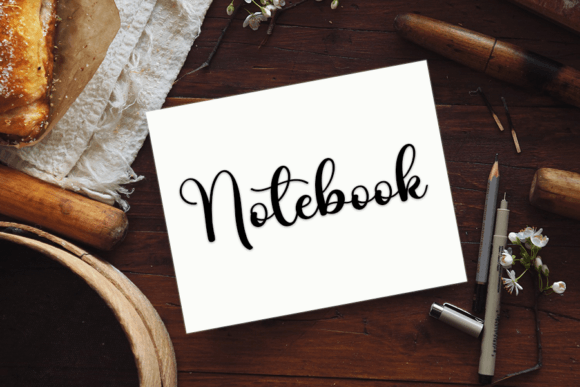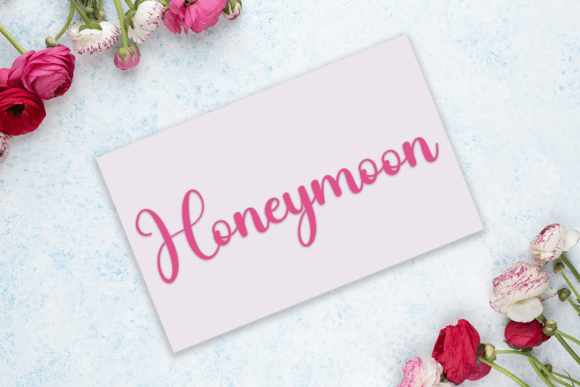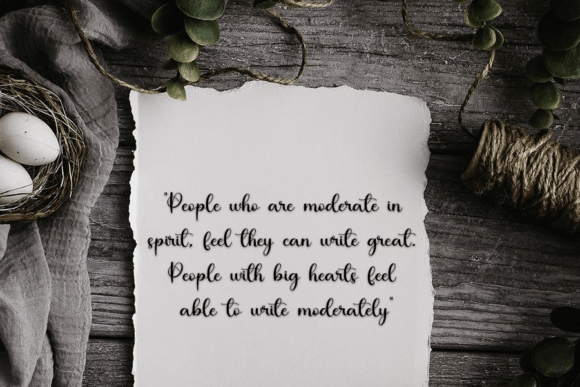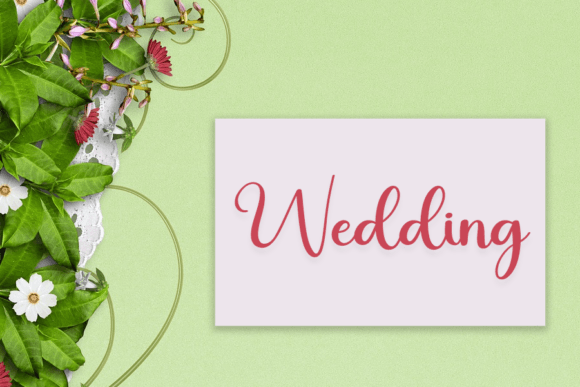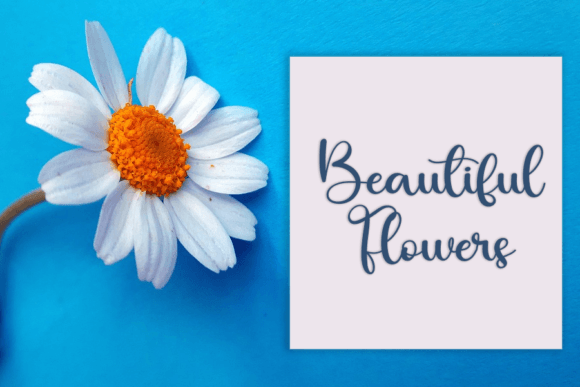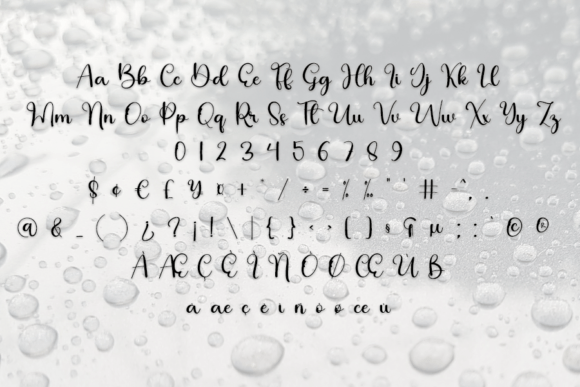
Buble Font: The Elegant and Feminine Choice for Your Design Needs
Are you a designer or crafter looking for a font that exudes elegance and femininity? Look no further than Buble Font! This beautiful typeface is perfect for creating stunning headlines for various design projects, from wedding stationery to social media posts. In this article, we’ll dive into the world of Buble Font and explore its features, uses, and benefits.
What is Buble Font?
Buble Font is a modern, elegant, and feminine typeface designed to make your headlines stand out. Its unique bubble-like shape gives it a distinctive and eye-catching appearance, making it perfect for designs that require a touch of sophistication and glamour. Whether you’re working on a wedding invitation, a social media post, or a packaging design, Buble Font is sure to impress.
Features of Buble Font
Buble Font comes with a range of features that make it an excellent choice for designers and crafters. Some of its key features include:
- Elegant and feminine design: Buble Font boasts a beautiful, curved design that’s perfect for creating elegant and feminine headlines.
- Unique bubble-like shape: The font’s distinctive bubble-like shape sets it apart from other typefaces and adds a touch of whimsy to your designs.
- High-quality and crisp letters: Buble Font features high-quality, crisp letters that are perfect for both digital and print designs.
- Easy to read: Despite its elegant design, Buble Font is easy to read, making it perfect for use in a variety of design projects.
Uses of Buble Font
Buble Font is a versatile typeface that can be used in a variety of design projects. Here are some of the most popular uses of Buble Font:
- Wedding stationery: Buble Font is perfect for creating beautiful wedding invitations, save-the-date cards, and other wedding stationery.
- Invitations: Whether you’re designing invitations for a birthday party, baby shower, or other celebration, Buble Font is a great choice.
- Florists and packaging: Buble Font is also suitable for use in florist designs, packaging, and branding, adding a touch of elegance and sophistication to your designs.
- Social media posts: Use Buble Font to create eye-catching social media posts that are sure to grab the attention of your followers.
Benefits of Using Buble Font
So, why should you choose Buble Font for your design projects? Here are some of the benefits of using this beautiful typeface:
- Adds elegance and sophistication: Buble Font adds a touch of elegance and sophistication to your designs, making them perfect for special occasions and high-end brands.
- Unique and eye-catching: The font’s distinctive bubble-like shape sets it apart from other typefaces and makes your designs stand out.
- Versatile: Buble Font can be used in a variety of design projects, from wedding stationery to social media posts.
Tips for Using Buble Font
Here are some tips for getting the most out of Buble Font:
- Use it for headlines: Buble Font is perfect for use in headlines, where its elegant and feminine design can really shine.
- Experiment with colors: Try using Buble Font in different colors to add a pop of personality to your designs.
- Pair it with other fonts: Buble Font pairs well with other fonts, so don’t be afraid to experiment with different font combinations.
In conclusion, Buble Font is a beautiful, elegant, and feminine typeface that’s perfect for designers and crafters looking to add a touch of sophistication and glamour to their designs. With its unique bubble-like shape, high-quality letters, and ease of use, Buble Font is sure to become a favorite in your design arsenal. So why not give it a try and see the difference it can make in your designs?